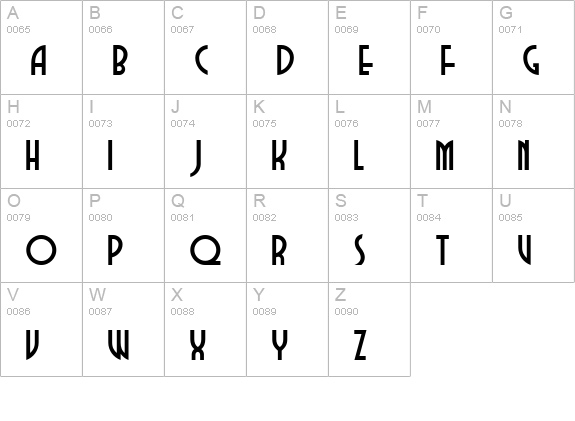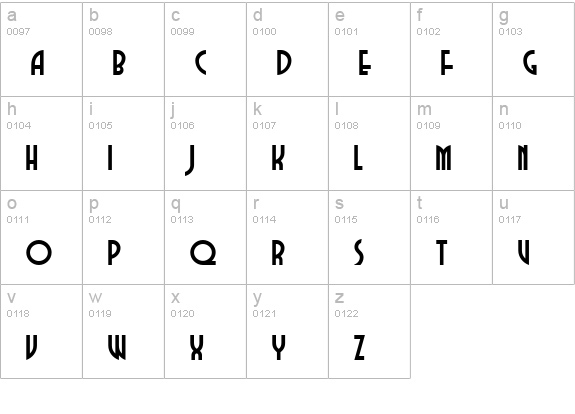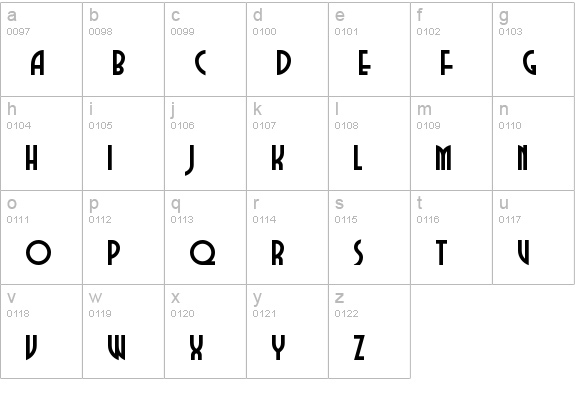
Dubba Dubba NF Font Details
Introducing Dubba Dubba NF, a modern and stylish font that is sure to make your designs stand out from the crowd. This unique typeface features bold and clean lines with a touch of playfulness, making it perfect for a wide range of design projects. Dubba Dubba NF is not only visually appealing, but it is also incredibly versatile. Whether you're designing a logo, creating branding materials, or working on a website, this font will add a touch of sophistication and professionalism to your work. What's more, Dubba Dubba NF is absolutely free! That's right, you can download this amazing font at no cost from FontsMarket.com. We believe that great design should be accessible to everyone, and that's why we are offering this font for free. With its wide range of characters and glyphs, Dubba Dubba NF offers endless possibilities for your creative projects. Its clean and legible design ensures that your message will be conveyed clearly, while its unique style adds a touch of personality to your work. So why wait? Download Dubba Dubba NF today and take your designs to the next level. With its sleek and modern look, this font is sure to make a lasting impression on your audience. Don't miss out on this incredible opportunity to get a high-quality font for free. Head over to FontsMarket.com and start using Dubba Dubba NF in your designs today!